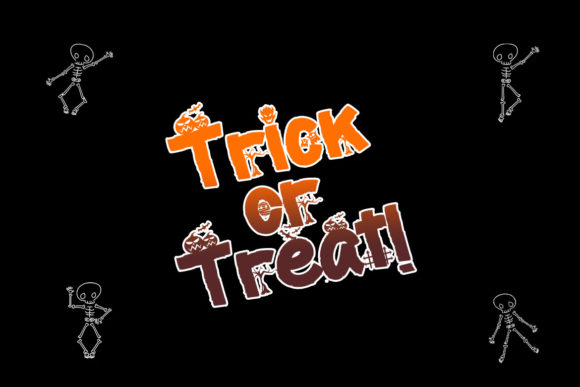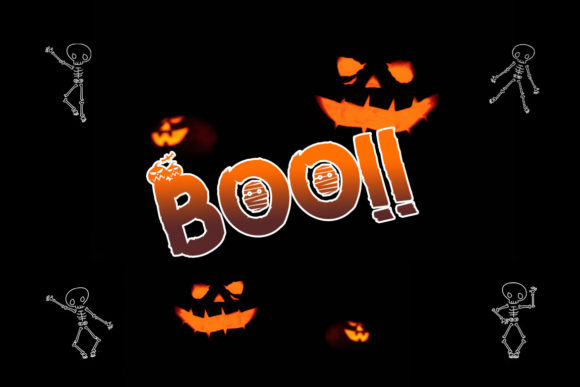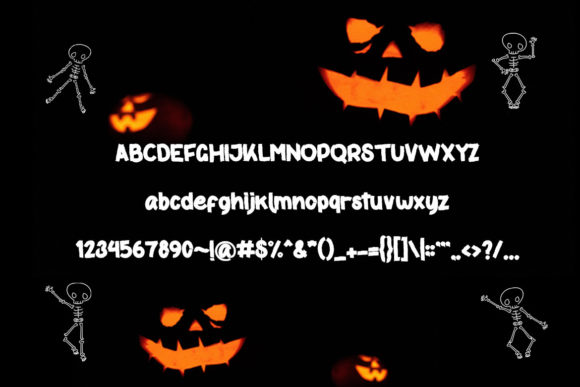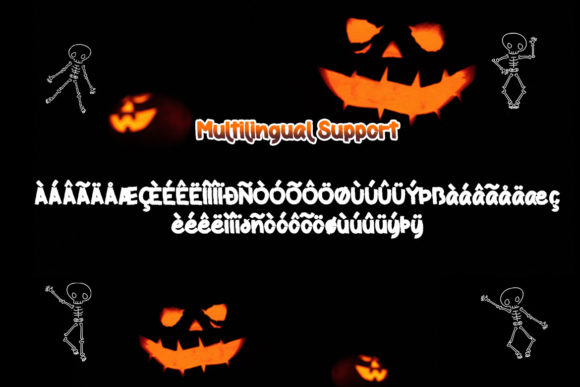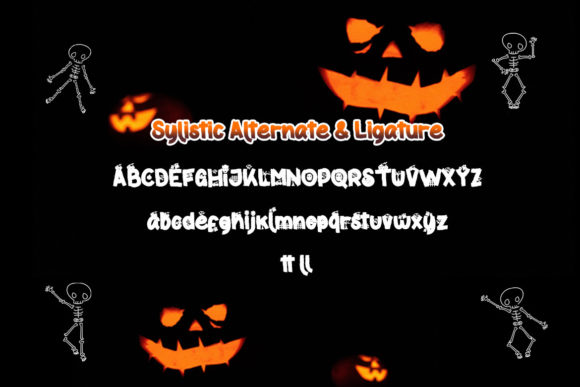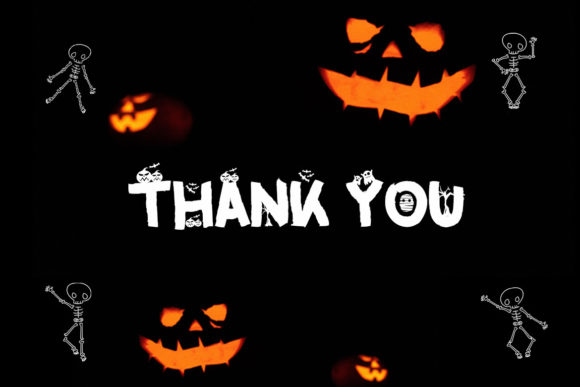
Introduction to Hapy Lowen Font
Hapy Lowen is a cool and spooky decorative font.
Whether youโ€™re using it for crafting, digital designing, presentations or greeting cards making, itโ€™s perfect This font is PUA encoded which means you can access all of the glyphs and swashes with ease.
Key Features of Hapy Lowen Font
Why Choose Hapy Lowen Font?
Hapy Lowen Font offers exceptional quality and versatility, making it a valuable addition to your design toolkit. Whether you’re creating for personal projects or commercial use, Hapy Lowen Font delivers professional results.